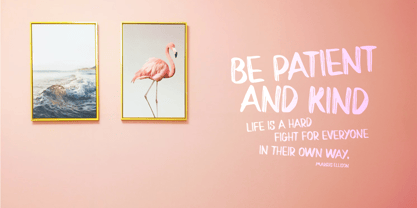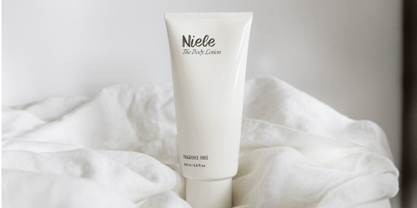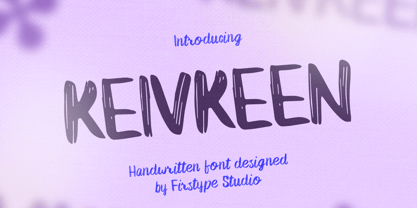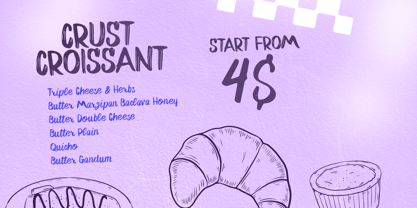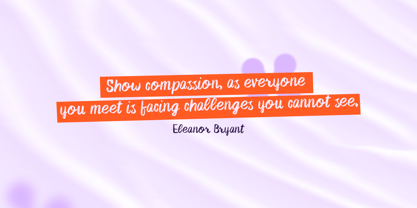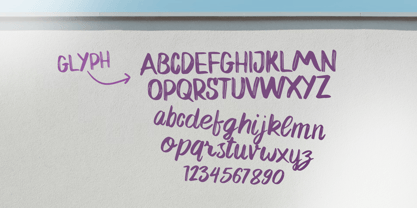
Kievkeen
by Firstype Studio
The Kievkeen Font Family was designed by Adrian Syauqi and published by Firstype Studio. Kievkeen contains 1 styles. More about this family
Keivkeen is a bold and expressive handwritten font designed to infuse life, warmth, and personality into your creative projects. With its thick, confident strokes and natural penmanship style, Keivkeen offers a casual yet impactful aesthetic—ideal for modern brands seeking authenticity. Inspired by handwritten notes and creative brush strokes, Keivkeen merges a playful touch with professional versatility. This font is perfect for logos, skincare packaging, coffee shop menus, boutique branding, product labels, social media graphics, and more. 🔑 Key Features: ✍️ **Bold Handwritten Style**: A strong, handcrafted feel that conveys a personal touch. 🎯 **Perfect for Lifestyle Brands**: Tailored for food, skincare, fashion, and creative businesses. 📦 **Versatile Usage**: Suitable for everything from café chalkboards to beauty product labels. 🌍 **Multilingual Support**: Expand your brand’s voice on a global scale. 💡 **Easy to Read**: Ensures clarity while maintaining a casual style—striking a balance between personality and professionalism. 📌 **Use It For**: - Café or restaurant menus - Skincare and organic product labels - Fashion and lifestyle branding - Social media posts & highlights - Invitations, packaging, and posters Let Keivkeen help you narrate your story in a way that feels handcrafted, confident, and full of charm. It's not just a font—it's the voice of your brand.
Designers: Adrian Syauqi
Foundry: Firstype Studio